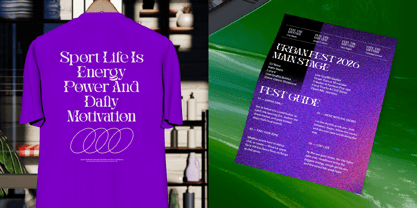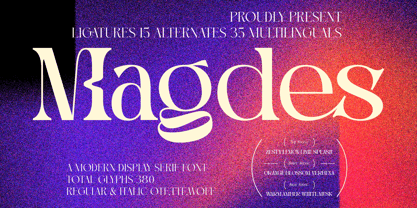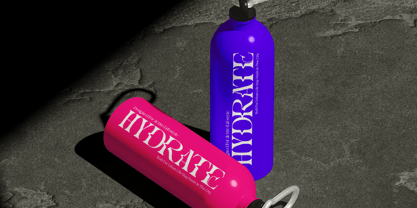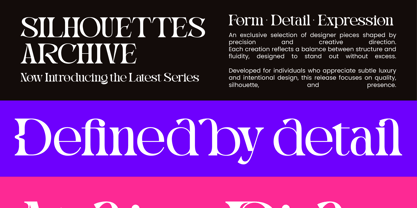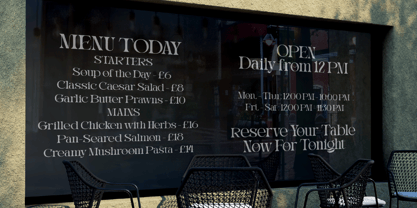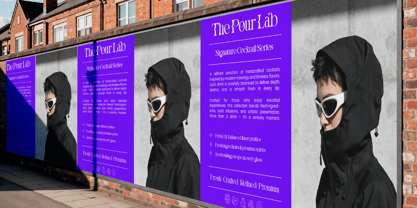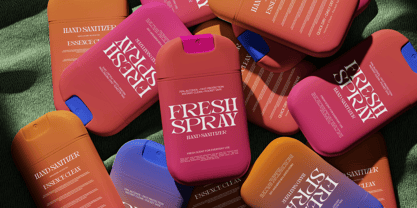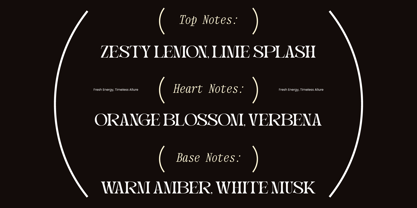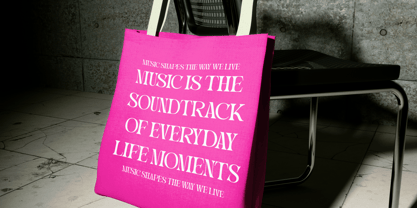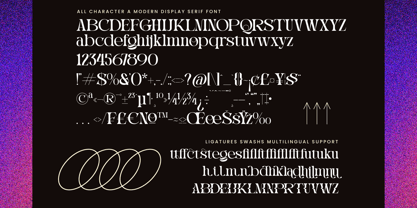
The Magdes Font Family was designed by Heru Utama Putra and published by Timelesstype Studio. Magdes contains 2 styles and family package options. More about this family
Magdes – Modern Display Serif Font is a masterclass in high-contrast design, blending sharp, contemporary serifs with fluid, artistic curves. This premium display font captures a sense of timeless luxury while maintaining a bold, forward-thinking edge. Whether you are crafting a minimalist logo or a high-end editorial layout, Magdes – Modern Display Serif Font provides the visual weight and elegance required to captivate a discerning audience.
Unleash limitless creativity with an extensive set of typographic assets. Boasting a comprehensive collection of 380 glyphs, including 15 unique ligatures and 35 stylistic alternates, Magdes – Modern Display Serif Font allows for total creative control over every headline. The availability of both Regular and Italic styles ensures rhythmic variety and depth within your designs. With its extensive multilingual support, Magdes – Modern Display Serif Font adapts seamlessly across global markets, making it incredibly versatile for international projects.